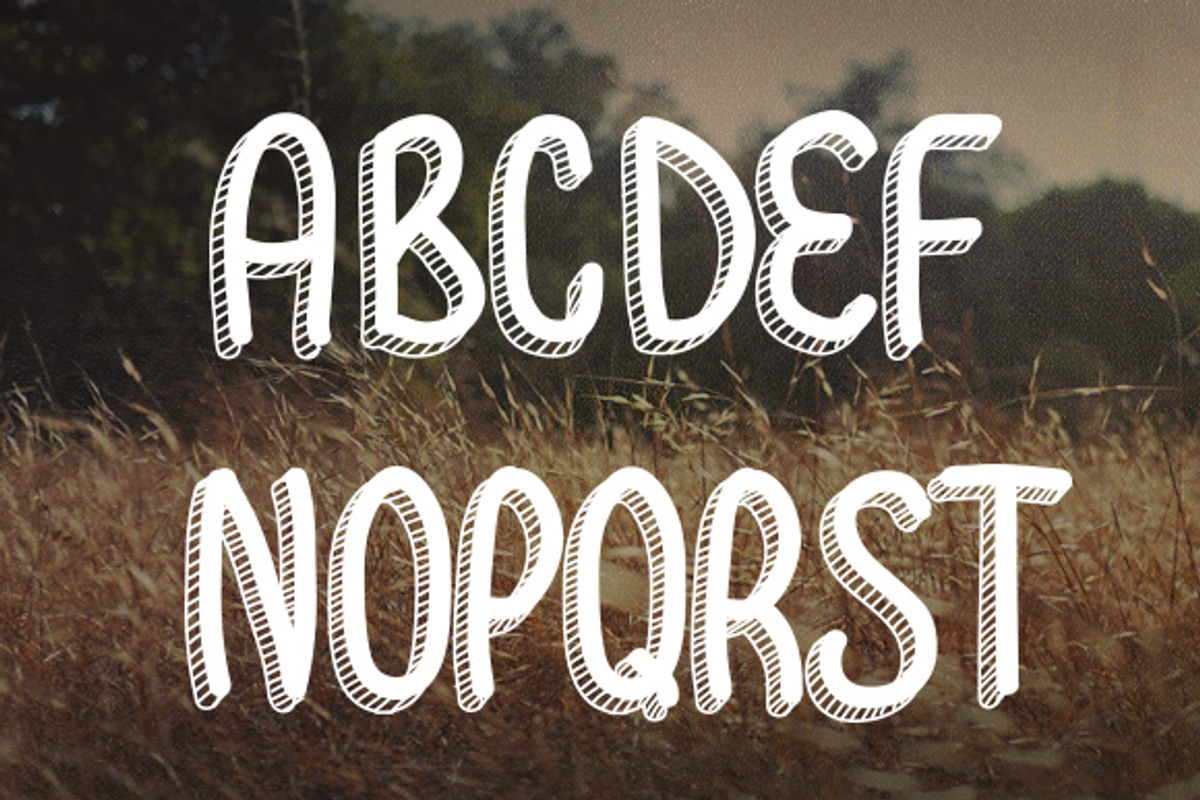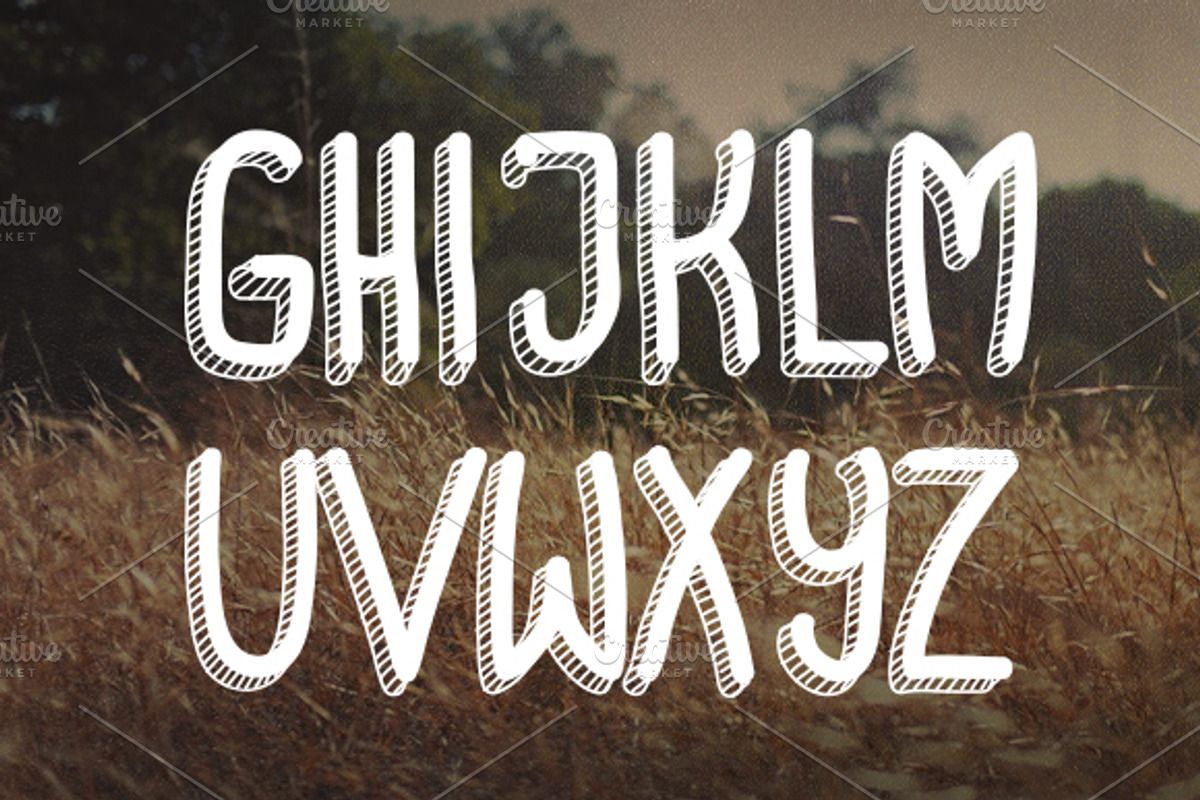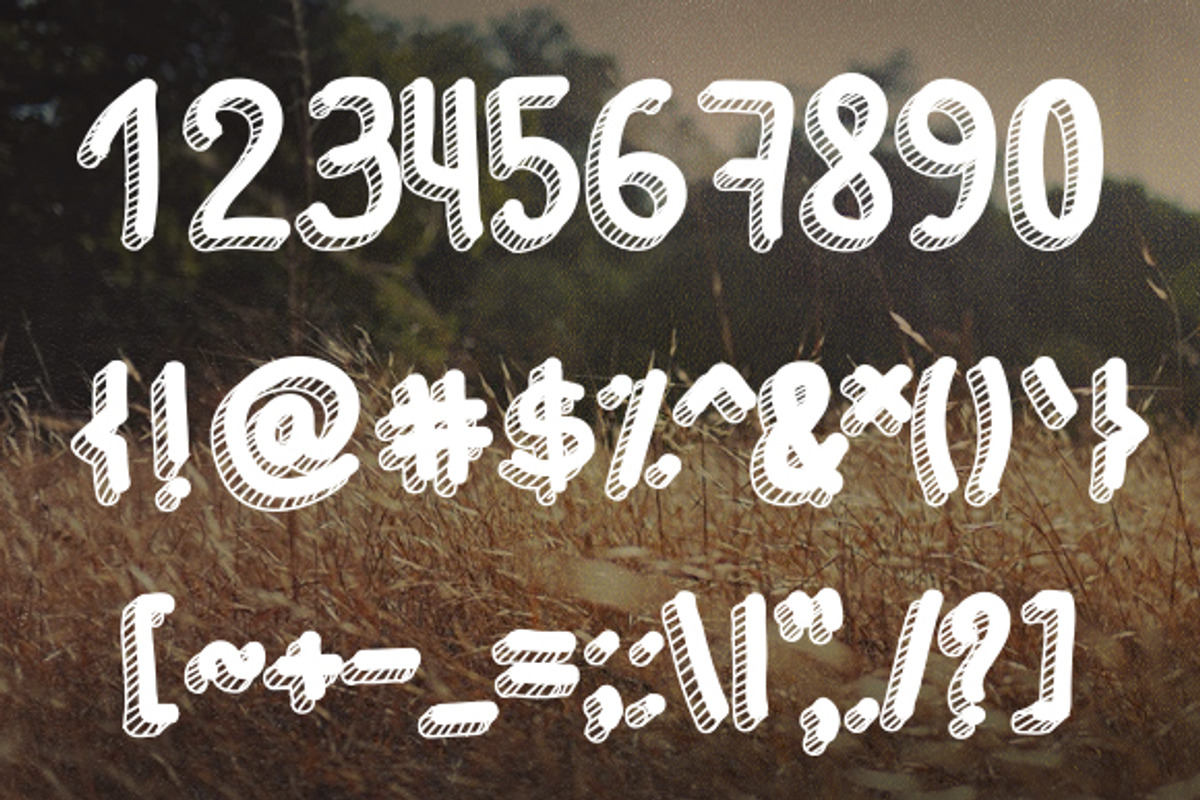
Bubble Handsketched Font
Bubble Handsketched Font by KULISTOV is a font selected for branding, posters, packaging, typography.
Bubble Handsketched Font by KULISTOV fits naturally into Branding, posters, packaging, typography.